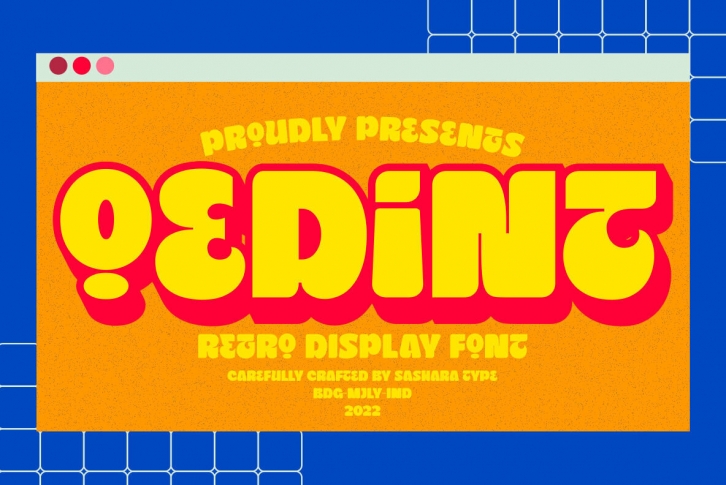
Oedint is a cheerful and entertaining typeface, this font is inspired by retro fonts rearranged with a modern theme, this font is great for kids content, poster display, logo type and more